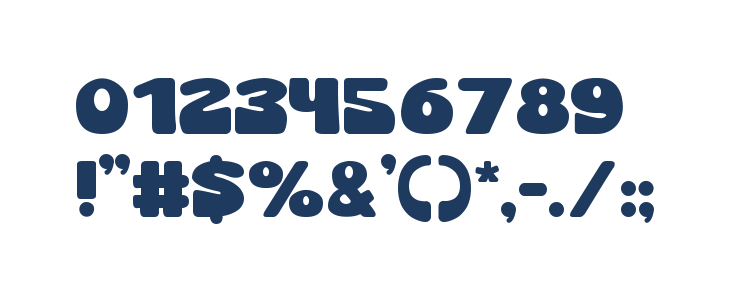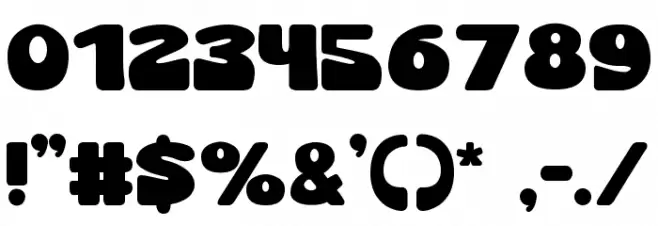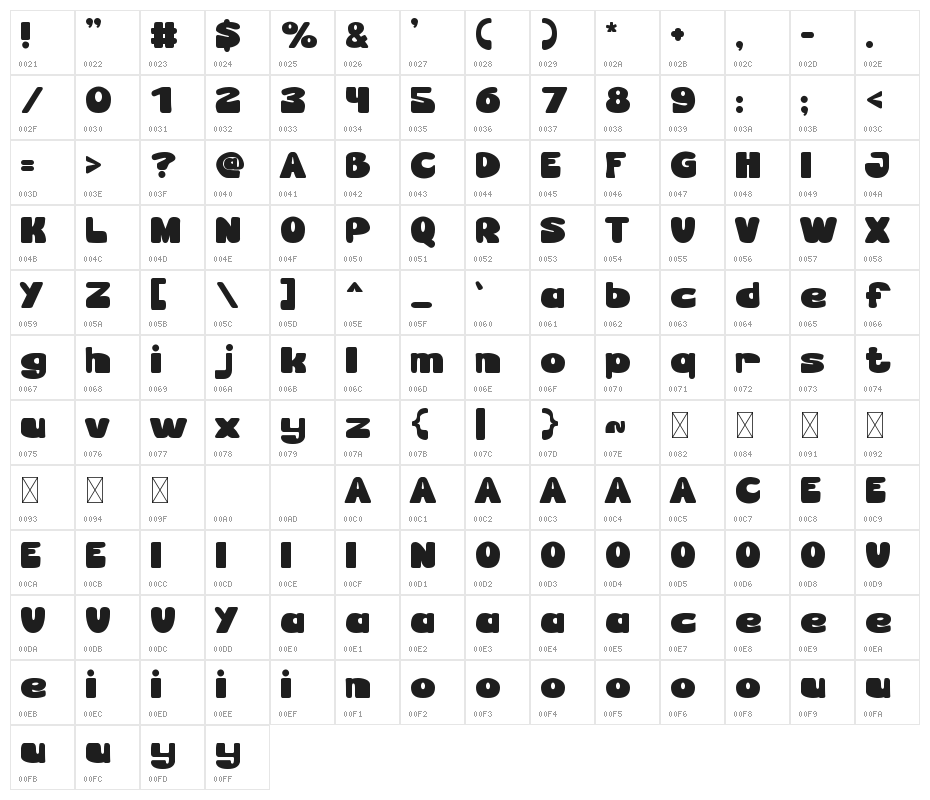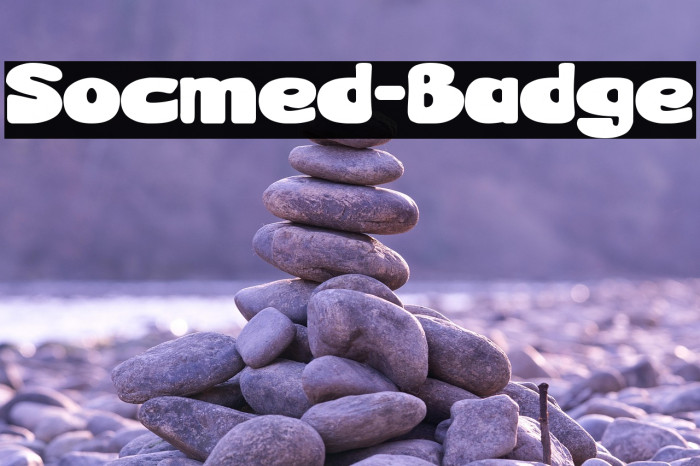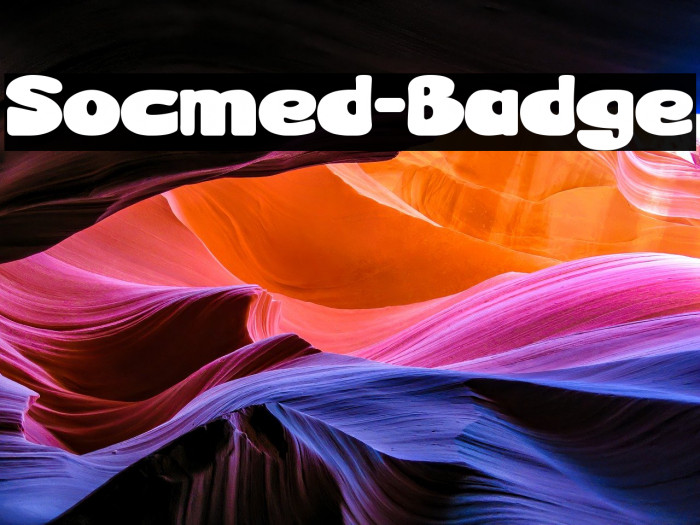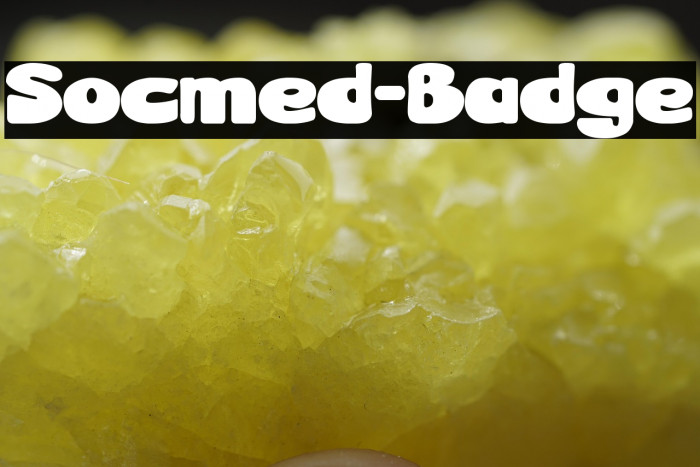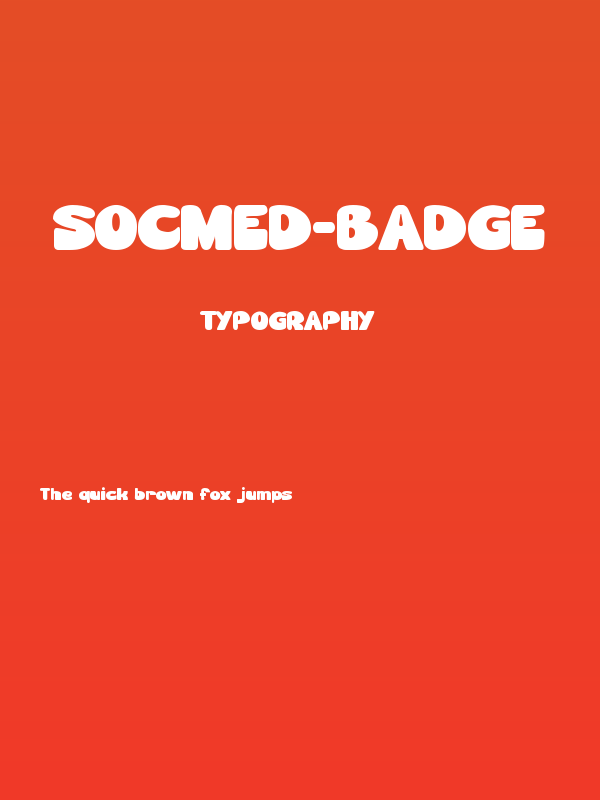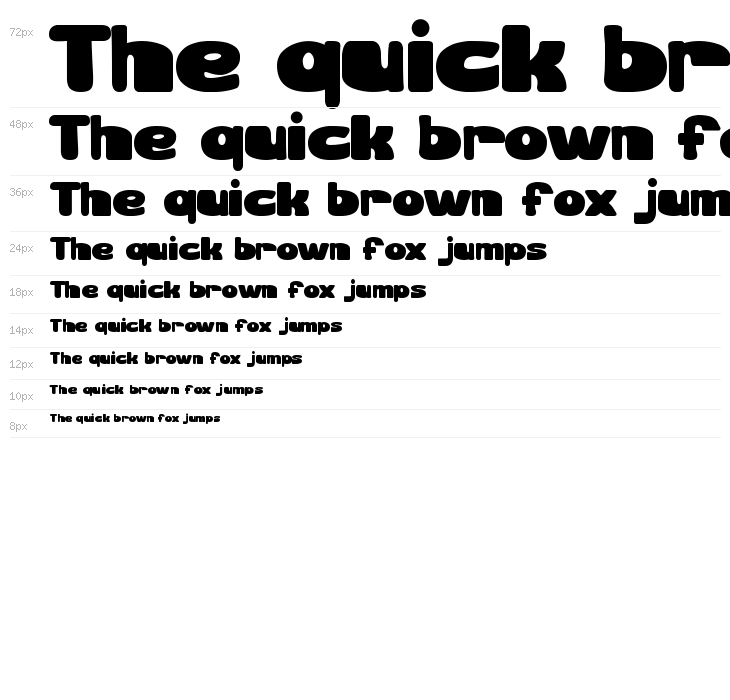
Socmed-Badge Font
Socmed-Badge Description
This font features a bold and playful design with rounded edges and a chunky appearance. The characters are uniformly thick, giving it a strong presence and making it highly legible even at smaller sizes. The uppercase and lowercase letters maintain a consistent style, with a slight variation in height and width that adds to its charm. The numbers and special characters are designed to match the overall aesthetic, ensuring a cohesive look across all text elements. This font's unique style makes it ideal for projects that require a fun and engaging visual impact.
Overall StylePlayful, Modern
Use CaseHeadlines, Logos, Social Media Graphics
Proposed ProjectsIdeal for children's books, playful branding, social media graphics, and eye-catching headlines.